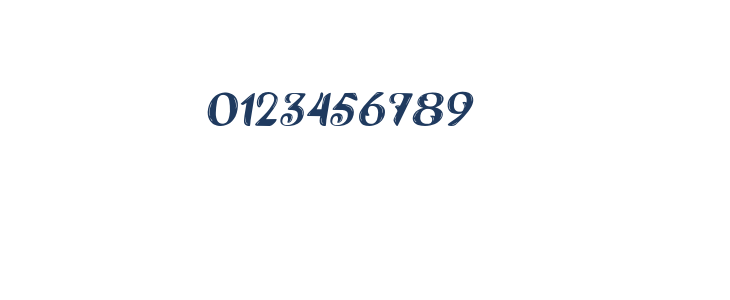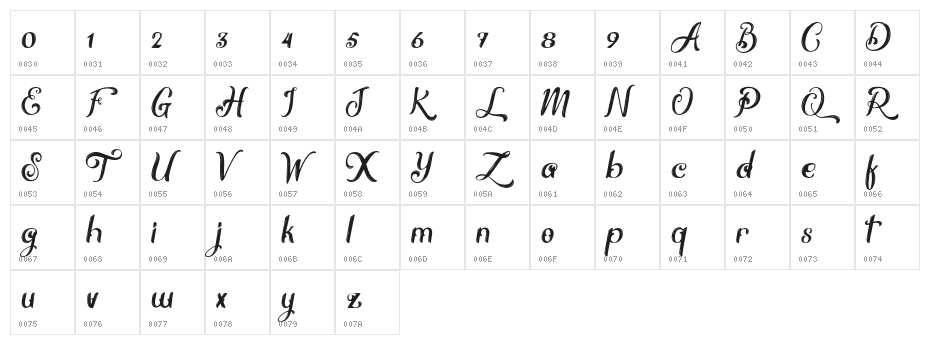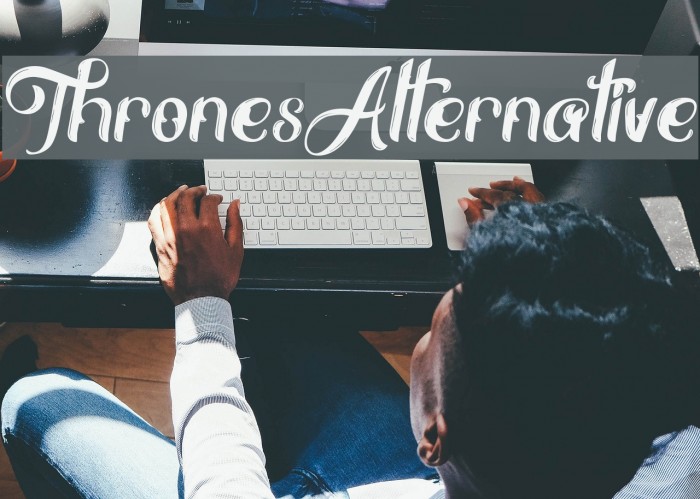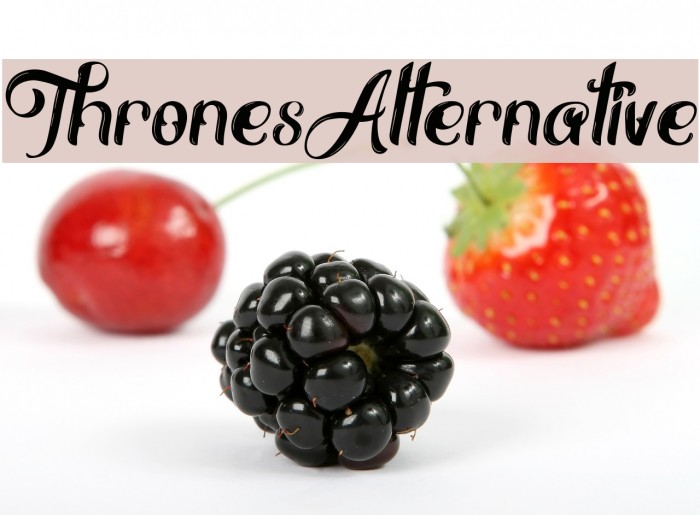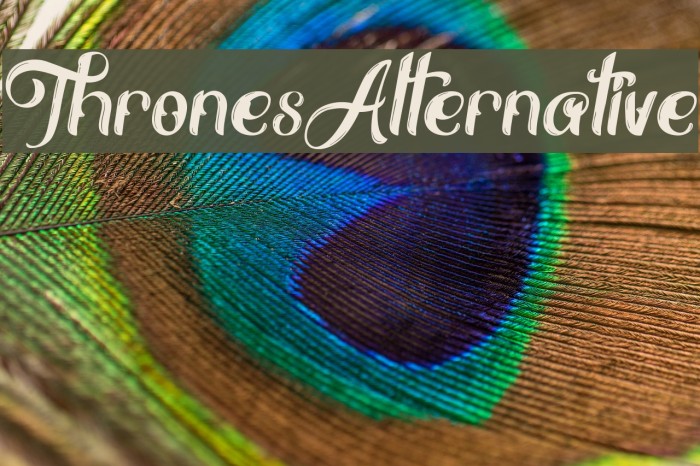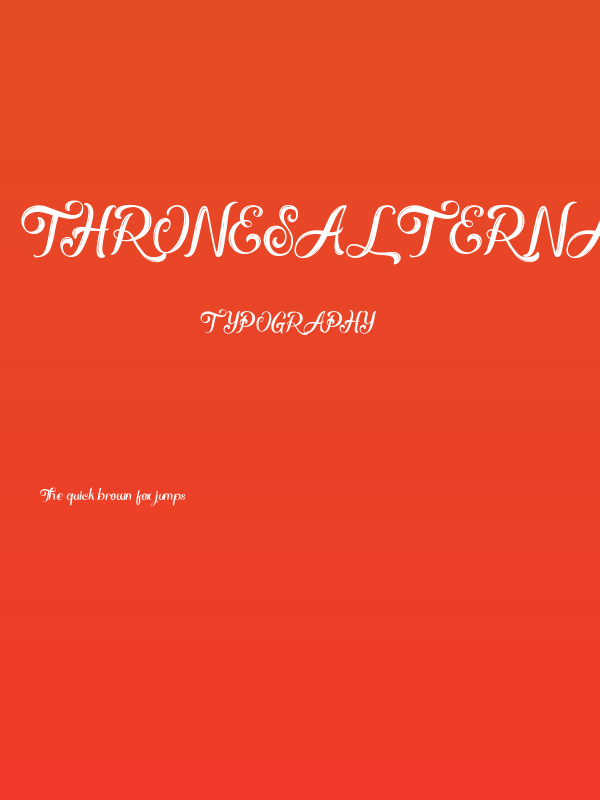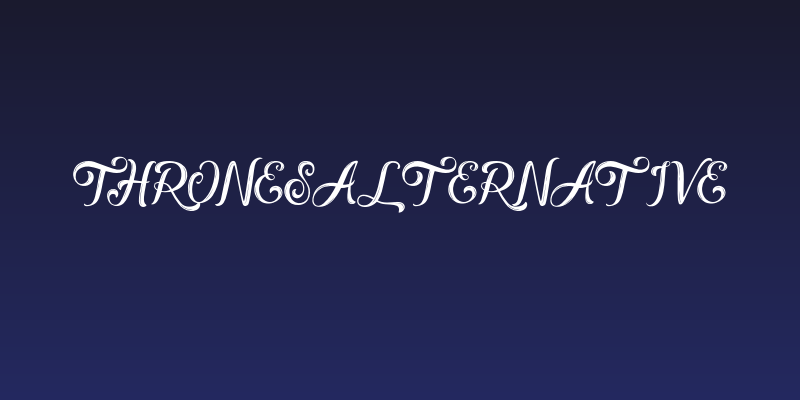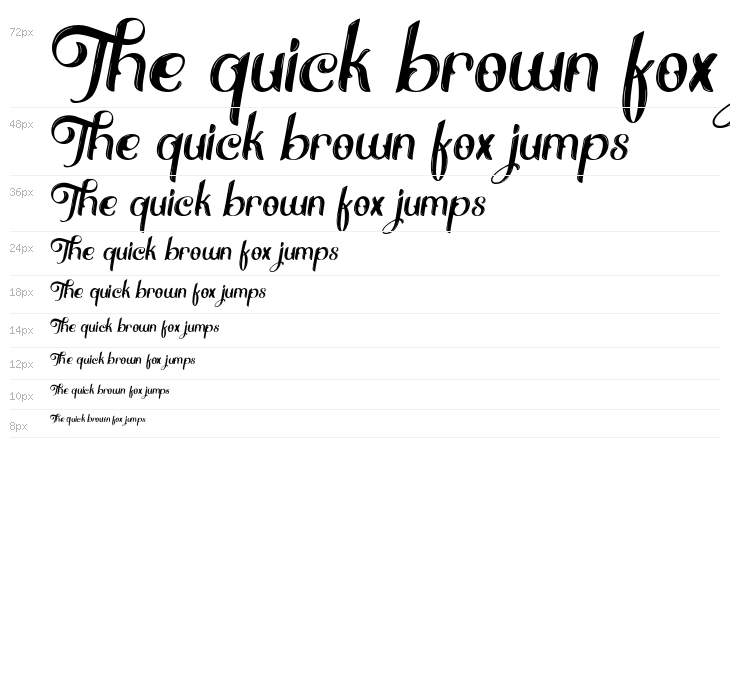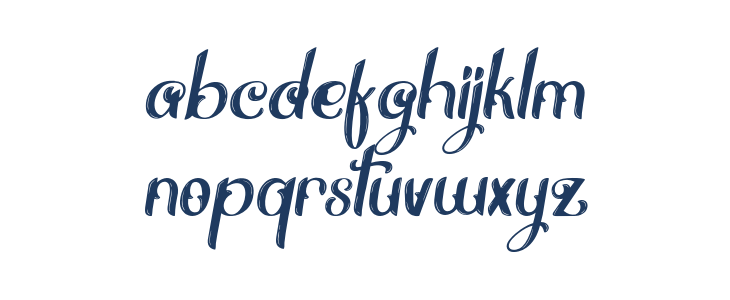
ThronesAlternative Font
ThronesAlternative Description
This font features a decorative and ornate style with a strong calligraphic influence. The uppercase letters are characterized by elegant swirls and flourishes, giving them a regal and sophisticated appearance. The lowercase letters maintain a consistent style, with some characters extending below the baseline, adding a dynamic flow to the text. The numerals are bold and maintain the decorative theme, ensuring consistency across all characters. This font is ideal for projects that require a touch of elegance and grandeur, such as invitations, branding, and headlines.